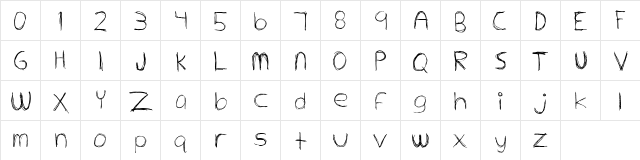
Extrafine Regular
Design Context for Extrafine Typeface
Extrafine is a composed and adaptable typeface that performs quietly and consistently across a wide range of design contexts.